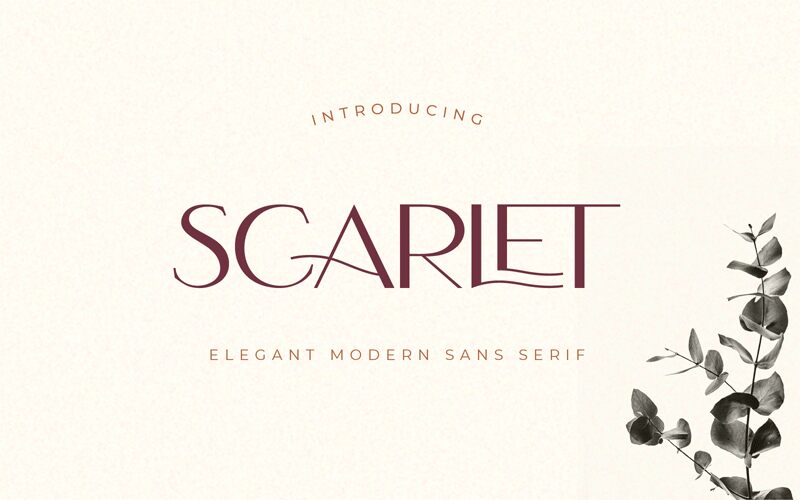
Scarlet, designed by Mustofa Nur Sidiq, is an elegant modern sans serif font that exudes sophistication and refinement. With its semi-light weight, Scarlet is perfect for projects that require a touch of delicacy and subtlety. Its clean lines and graceful curves make it ideal for luxury branding, wedding invitations, fashion editorials, and high-end publications. Whether you're designing a chic logo or creating a sophisticated website, Scarlet's timeless elegance will elevate your project to new heights. Let this exquisite font inspire your creativity and captivate your audience with its refined charm.
Scarlet